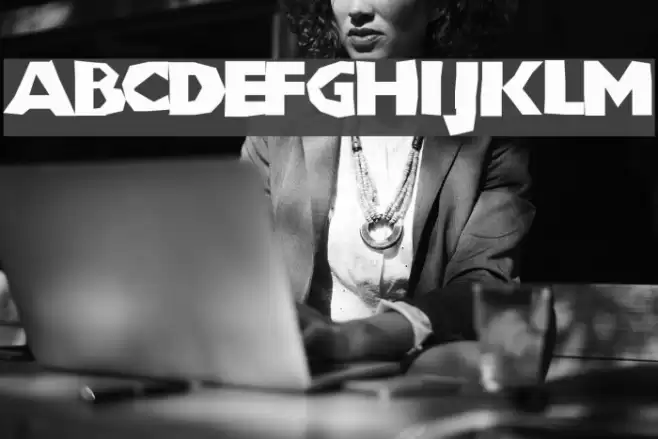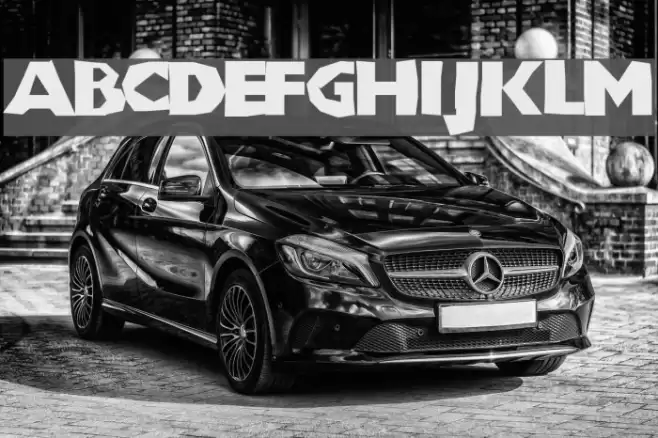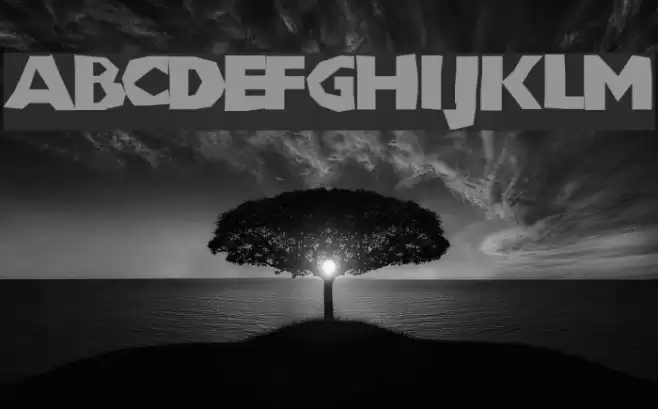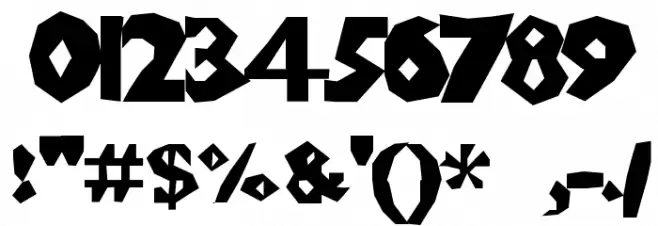
ChunkoBlocko Font
ChunkoBlocko Description
This font features a bold, geometric design with a blocky and angular aesthetic. The characters are constructed with sharp edges and irregular shapes, giving it a rugged and dynamic appearance. The uppercase and lowercase letters maintain a consistent style, with each character exhibiting a unique, chiseled form. Numbers and special characters follow the same design principles, ensuring a cohesive look across all elements. The font's distinct style makes it stand out, suitable for projects that require a strong visual impact.
A bold, geometric font with a blocky, angular design from Uncategorized fonts.
- Proposed Projects: Ideal for posters, headlines, logos, and any design requiring a bold statement.